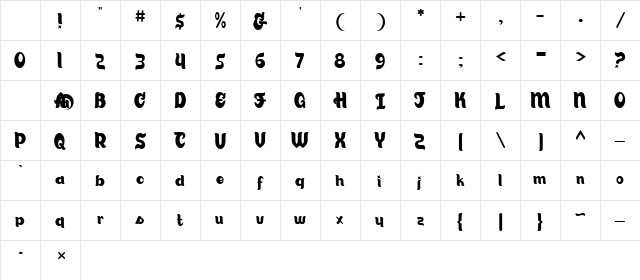
Candy Store BV Regular
Design Context for Candy Store BV
Candy Store BV is a composed and adaptable typeface that performs quietly and consistently across a wide range of design contexts.